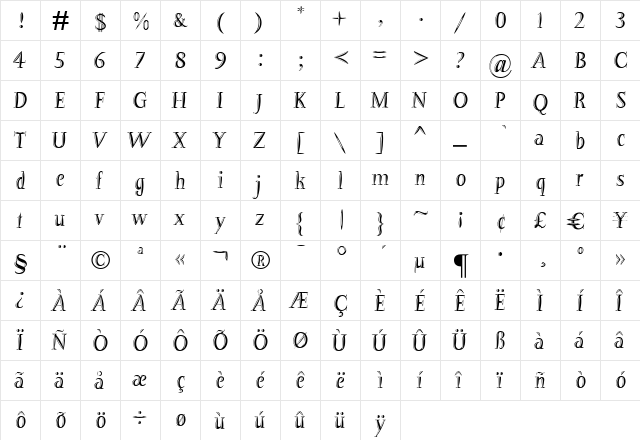
Barracuda Regular Relief Regular
Design Context for Barracuda Regular Relief Typeface
Barracuda Regular Relief takes a measured approach to typography — its balanced proportions and neutral character make it a reliable workhorse for both digital and print work.